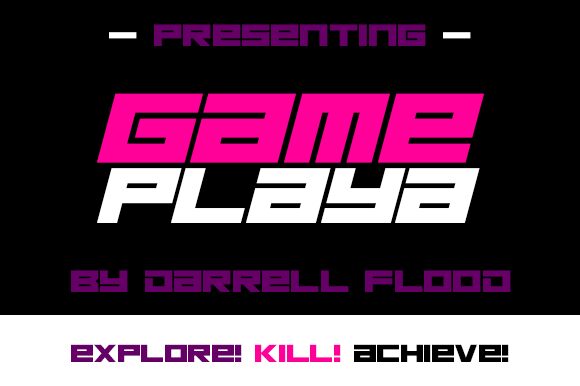
Gameplaya Italic
Gameplaya Italic is a bold and futuristic font that is perfect for projects that require a unique and eye-catching display typeface. Designed by Darrell Flood, the extra-expanded width of this font ensures maximum impact and legibility in any context. From video game titles to tech startups, Gameplaya Italic adds a touch of modernity and innovation to any project it's used in. Its strong lines and distinctive style make it ideal for logos, branding materials, advertising campaigns, packaging designs, and more. Get ready to level up your design game with Gameplaya Italic!